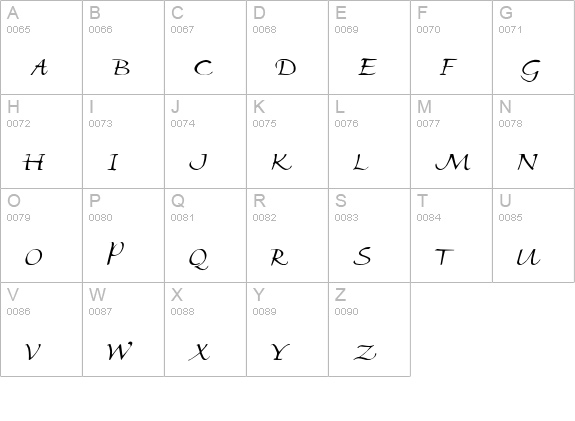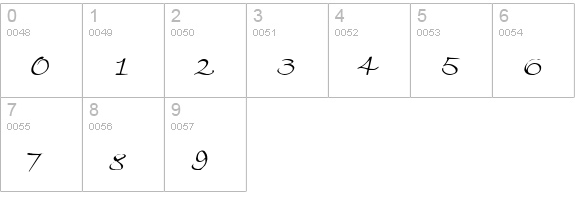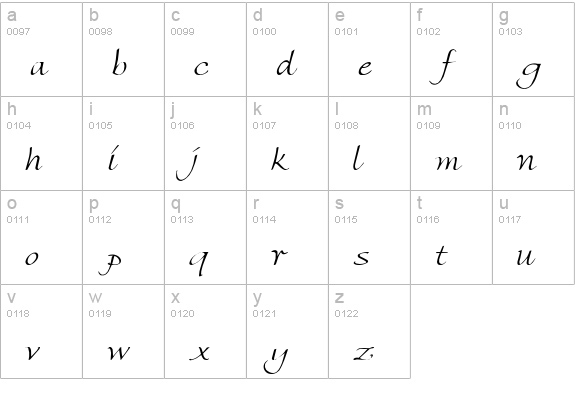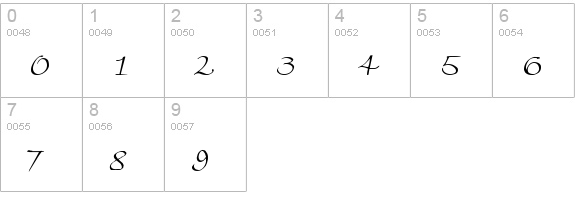
Ambiente Script SSi Light is a refined, elegant variant in the Ambiente typeface family \xE2\x80\x94 well suited to elegant body text, refined sub-headings, and luxury branding.
Ambiente Script SSi Light is a beautiful and elegant font that exudes a sense of sophistication and grace. Its delicate strokes and flowing lines make it perfect for adding a touch of refinement to any project. This free font offers a harmonious balance between classic calligraphy and modern design, making it versatile for a wide range of applications. Ambiente Script SSi Light is freely available to download at FontsMarket.com, where you can access this exquisite typeface with just a few clicks. Whether you're designing invitations, branding materials, or signage, this font will elevate your work with its timeless and graceful aesthetic. Embrace the beauty of Ambiente Script SSi Light and enhance your designs with its effortless charm and elegance.